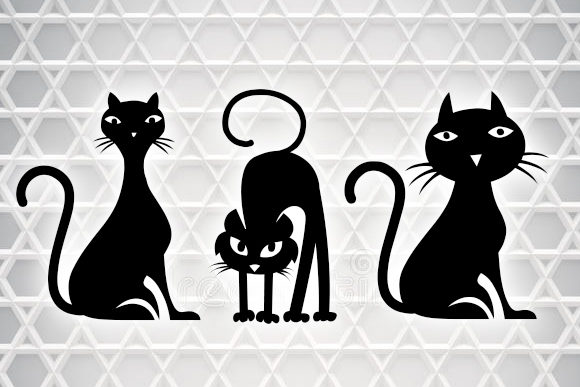
Cats Font: The Purrfect Addition to Your Design Arsenal
Are you tired of using the same old fonts in your designs? Look no further than Cats Font, an incredibly unique and interesting dingbats font that’s sure to make your work stand out. With its distinct style, Cats Font is incredibly fitting to a large pool of designs, making it a versatile and valuable addition to any designer’s toolkit.
What is Cats Font?
Cats Font is a dingbats font, which means it’s a type of font that features symbols, icons, and other graphical elements rather than traditional letters and numbers. In the case of Cats Font, the dingbats take the form of adorable and playful cat illustrations, ranging from cute cartoon cats to more stylized and abstract feline designs.
Unique Features of Cats Font
So what sets Cats Font apart from other dingbats fonts on the market? Here are just a few of its unique features:
- Wide range of designs: Cats Font includes a vast array of cat illustrations, from simple and minimalist to complex and detailed. This means you can choose the perfect design to fit your project’s style and tone.
- High-quality graphics: Each cat illustration in Cats Font is meticulously crafted to ensure it looks crisp and clear, even at small sizes. This makes it perfect for use in a variety of design applications, from digital graphics to print materials.
- Easily scalable: Unlike some dingbats fonts that can become pixelated or blurry when scaled up or down, Cats Font remains clear and vibrant at any size. This makes it incredibly versatile and easy to use.
Design Applications for Cats Font
So what kinds of designs can you use Cats Font for? The possibilities are endless! Here are a few ideas to get you started:
- Stationery and greeting cards: Add a playful touch to your stationery, greeting cards, and invitations with Cats Font’s adorable cat illustrations.
- Digital graphics: Use Cats Font to create fun and eye-catching social media graphics, blog posts, and other digital content.
- Branding and packaging: If you’re working on a branding or packaging project for a cat-related business, Cats Font is a purrfect choice.
- Crafting and DIY projects: If you’re a crafter or DIY enthusiast, Cats Font can add a fun and whimsical touch to your projects, from scrapbooking to knitting patterns.
Tips for Using Cats Font
Here are a few tips for getting the most out of Cats Font:
- Experiment with different sizes and colors: Don’t be afraid to try out different sizes and colors to see what works best for your design.
- Combine with other fonts: Cats Font pairs well with a variety of other fonts, so feel free to experiment with combining it with other typefaces.
- Use it sparingly: While Cats Font is incredibly versatile, it can be overwhelming if overused. Use it sparingly to add a touch of whimsy to your design.
In conclusion, Cats Font is an incredibly unique and interesting dingbats font that’s sure to add a touch of whimsy and fun to your designs. With its wide range of designs, high-quality graphics, and ease of use, it’s a valuable addition to any designer’s toolkit. Whether you’re working on a stationery project, digital graphics, or crafting and DIY project, Cats Font is the purrfect choice. So why not give it a try and see what kind of creative possibilities it unlocks for you?